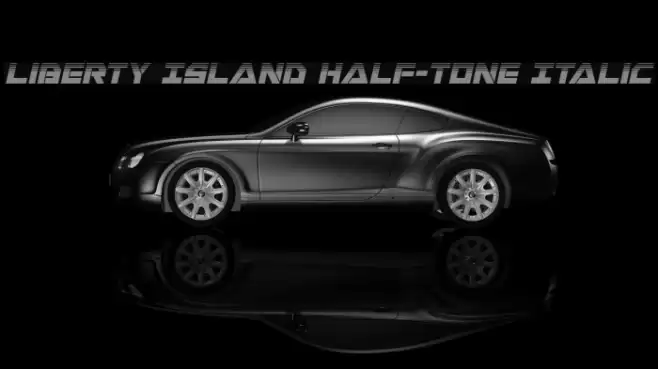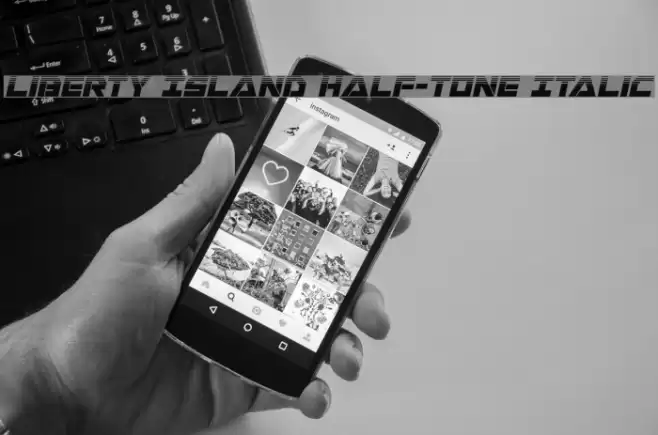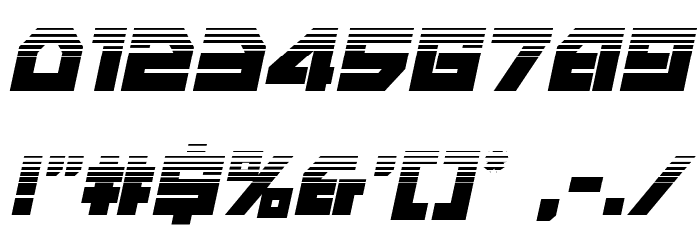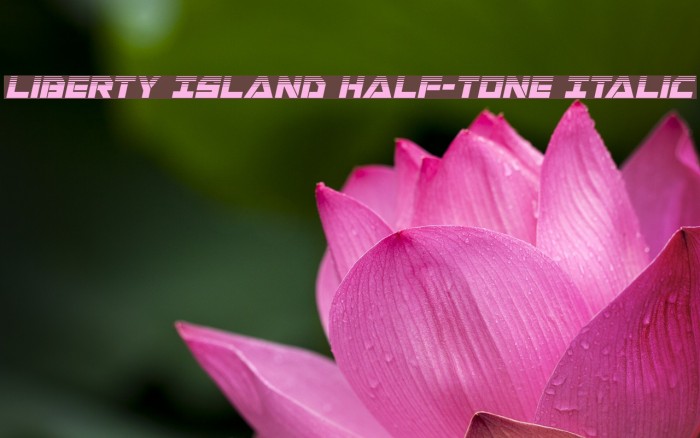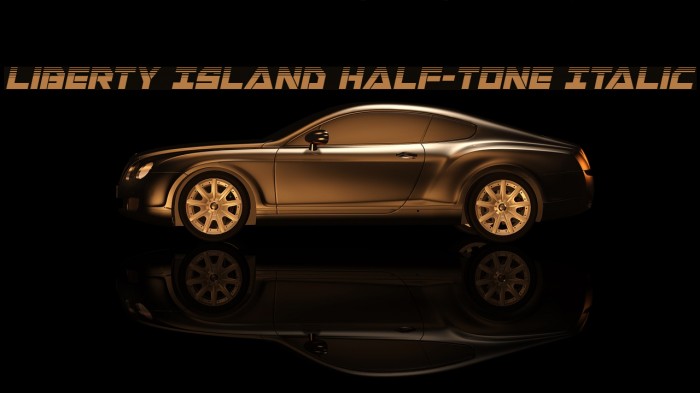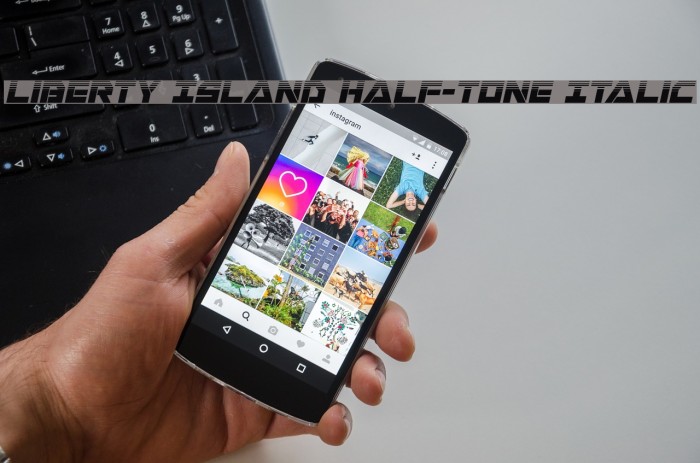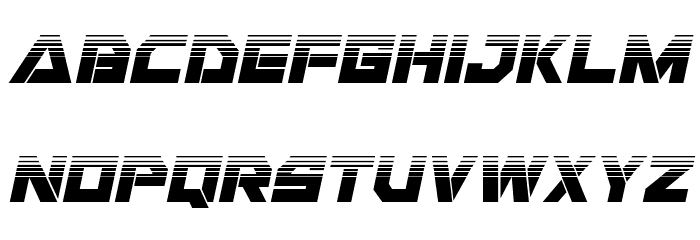
Liberty Island Half-Tone Italic Font
Liberty Island Half-Tone Italic Description
This font features a bold and dynamic design with a distinct half-tone effect that gives it a modern, futuristic appearance. The characters are italicized, adding a sense of motion and speed. The use of horizontal lines within the characters creates a unique visual texture, making it stand out in any design. The font is highly stylized, with sharp angles and a geometric structure that conveys a sense of strength and innovation. It is well-suited for projects that require a bold statement, such as technology branding, sports team logos, or modern advertising campaigns.
A bold, italicized font with a modern half-tone effect and geometric structure from Uncategorized fonts.
- Proposed Projects: Ideal for technology branding, sports logos, modern advertising, and futuristic designs.
- Use Case: Logos, Headlines, Advertising